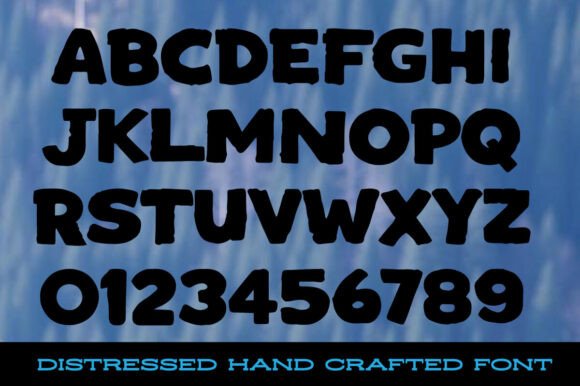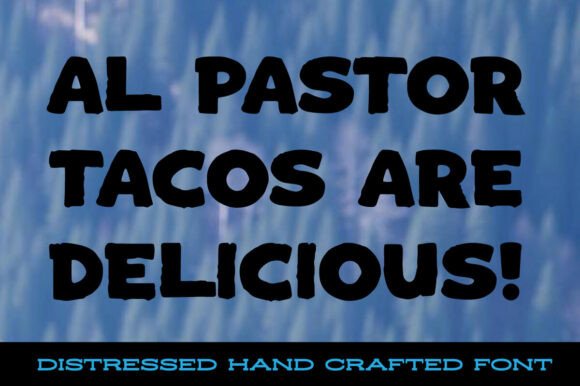
Introducing Brovenic Font: The Perfect Blend of Strength and Character
In the world of typography, fonts play a crucial role in conveying the tone and personality of a brand or design. For designers and crafters looking for a unique and versatile font, Brovenic is an excellent choice. This hand-crafted bold font combines strength with subtle imperfections, making it perfect for projects that require a balance of boldness and warmth.
The Unique Charm of Brovenic
Brovenic’s distinct character lies in its slightly rough edges, which add a touch of authenticity and handmade feel to any design. This subtle imperfection gives the font a natural, organic look that sets it apart from more polished and uniform fonts. The result is a font that exudes warmth and personality, making it ideal for designs that require a human touch.
Brovenic’s versatility makes it suitable for a wide range of projects, including logos, headlines, branding, and creative displays. Its bold yet warm personality shines through in any application, making it an excellent choice for designers looking to create a lasting impression. Whether you’re working on a modern and sleek design or a vintage-inspired project, Brovenic’s unique charm adapts seamlessly to any style.
Combining Boldness with Warmth
One of the standout features of Brovenic is its ability to balance boldness with warmth. The font’s bold strokes and confident appearance make it perfect for headlines and titles, while its subtle imperfections and rough edges add a touch of warmth and approachability. This balance makes Brovenic an excellent choice for designs that require a strong yet inviting presence.
For designers and crafters looking for inspiration, Brovenic offers endless possibilities. Use it to create eye-catching logos that stand out from the crowd, or to add a touch of personality to your branding and marketing materials. The font’s versatility also makes it perfect for creative displays, such as posters, flyers, and social media graphics.
Tips for Using Brovenic Effectively
To get the most out of Brovenic, consider the following tips:
- Use it as a headline font to add a bold and attention-grabbing touch to your design.
- Pair it with a clean and simple font for body text to create a striking contrast.
- Don’t be afraid to mix and match Brovenic with other fonts to create a unique and personalized look.
In conclusion, Brovenic is a unique and versatile font that offers the perfect blend of strength and character. Its hand-crafted bold appearance, combined with subtle imperfections and rough edges, makes it perfect for projects that require a balance of boldness and warmth. Whether you’re a designer or crafter looking for a font that will elevate your designs, Brovenic is an excellent choice. With its endless possibilities and versatility, Brovenic is sure to become a staple in your font collection.